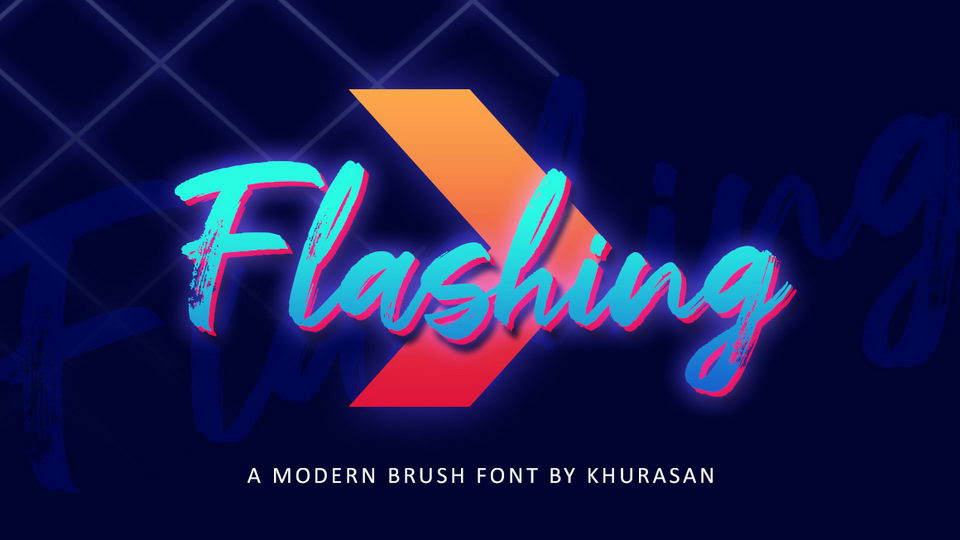
Download Flashing font, a fresh handwritten brush typeface with natural texture and strong character. Flashing font is great for posters, headlines, social media and more.